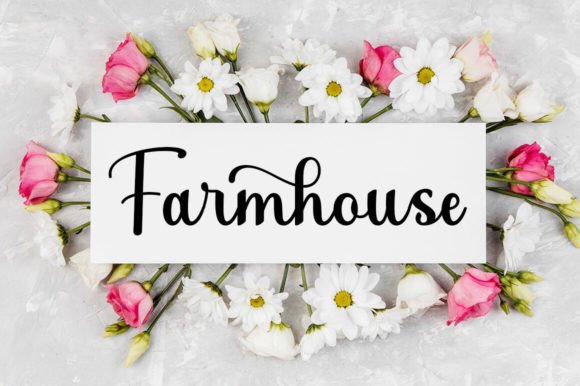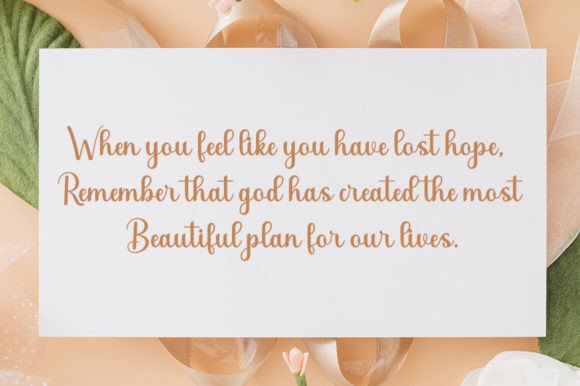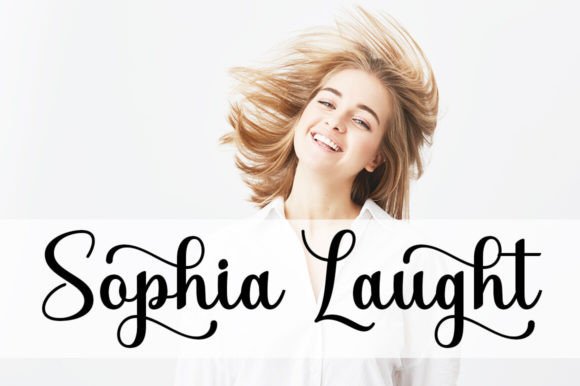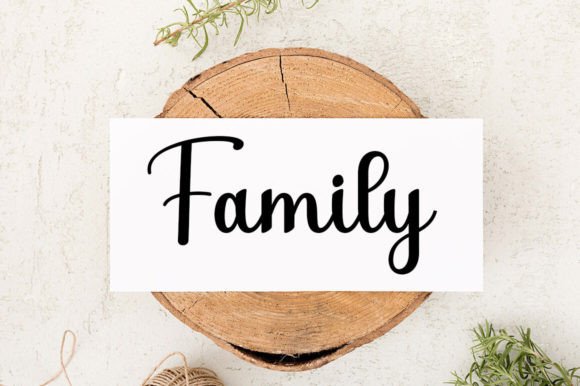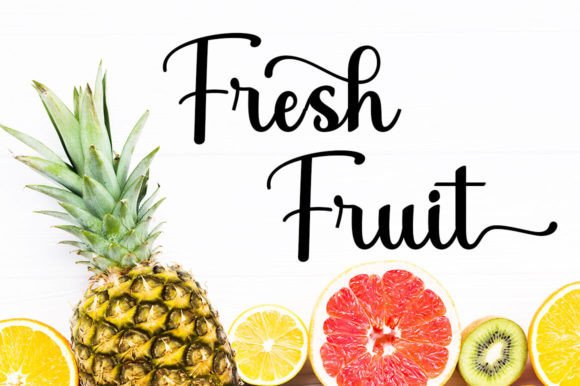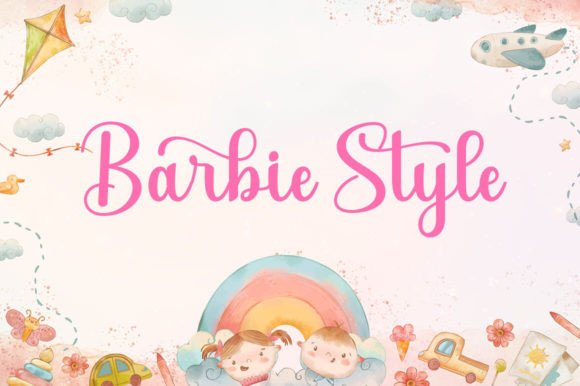
Discover the Magic of Handwritten Charm
Have you ever felt the rush of excitement when you finally find the perfect font to match your creative vision? That’s exactly what happened to many designers when they stumbled upon the charming Hayda Script Font. This cute modern calligraphy font is a game-changer for any project that requires a touch of elegance and whimsy.
Whether you’re working on product packaging, branding projects, magazines, social media, or even weddings, the Hayda Script Font is the perfect companion. Its PUA-encoded design makes it incredibly easy to access all the amazing glyphs and ligatures, giving you the freedom to express your creativity without any limitations.
For designers, the Hayda Script Font is a valuable addition to their toolkit, offering a unique way to add personality and style to their projects. Its versatility and charm make it an instant favorite among creatives, and we can’t wait to explore its possibilities with you!
Hayda Script Font Key Features
- Unique Characteristics: Elegant, cursive script font with a mix of modern and classic elements; ideal for creative projects, invitations, and branding
Hayda Script Font Review
I recently had the chance to work with the Hayda Script font, and I must say it’s a unique and stylish addition to any design project ✨. The font’s elegant script style adds a touch of sophistication and creativity to headings and titles, making it perfect for a variety of applications.
Here are some of the things that work well with Hayda Script font:
- Its elegant script style makes it perfect for headings, titles, and other text elements where a touch of sophistication is required ✨.
- The font is highly legible, even at smaller font sizes, making it suitable for a wide range of design projects.
- The font’s versatility allows it to be used in both digital and print designs, making it a great addition to any designer’s toolkit.
- ⚠️ The font may not be suitable for large blocks of text, as it can become difficult to read at smaller font sizes.
- ⚠️ The font’s script style can make it difficult to use in situations where a more straightforward font is required.
Overall, I’m impressed with Hayda Script font’s unique style and versatility. While it may not be suitable for every design project, it’s a great addition to any designer’s toolkit and can add a touch of sophistication and creativity to any design project ✨.
Hayda Script Font: A Practical Application Guide
Getting the Most Out of Hayda Script Font
To get the most out of Hayda Script Font, try the following:
- Use it in combination with other script fonts for a unique look.
- Use it for titles, headings, and other emphasis elements.
Hayda Script Font is commonly used for:
- Set the font as the primary text font for the invitation’s title and main content.
- Combine it with a serif font, such as Georgia or Times New Roman, for a classic look.
- Pair Hayda Script Font with delicate floral patterns or lace for a vintage feel.
- Add a touch of elegance with gold or silver foil stamping or embossing.
- Balance the script font with simple white or cream-colored backgrounds.
- Use Hayda Script Font as the primary font for the blog’s title and tagline.
- Pair it with a clean sans-serif font, such as Arial or Helvetica, for the navigation menu and body text.
- Add a pop of color with a bold, contrasting background or accents.
- Pair Hayda Script Font with high-quality food images or illustrations for a cohesive look.
- Add a touch of warmth with earthy
Exploring the Beauty of Hayda Script Font
Design a set of elegant wedding invitations that incorporate the Hayda Script Font for a romantic and whimsical touch.
To use Hayda Script Font in this project:
Project 2: Chic Food Blog Header
Create a mouth-watering food blog header that showcases the Hayda Script Font’s playful and artistic flair.
To use Hayda Script Font in this project: